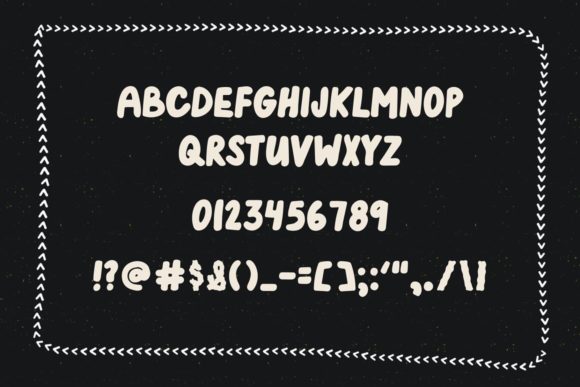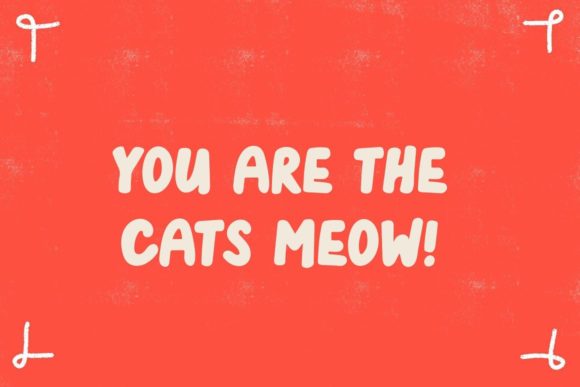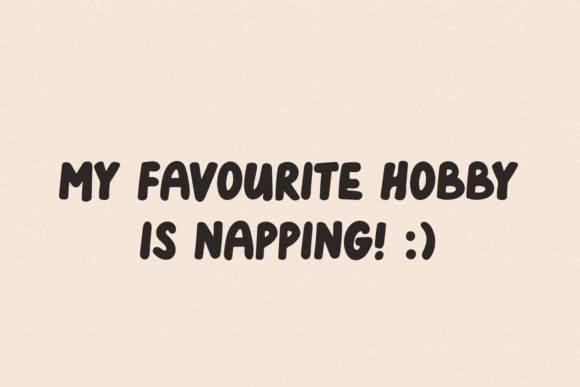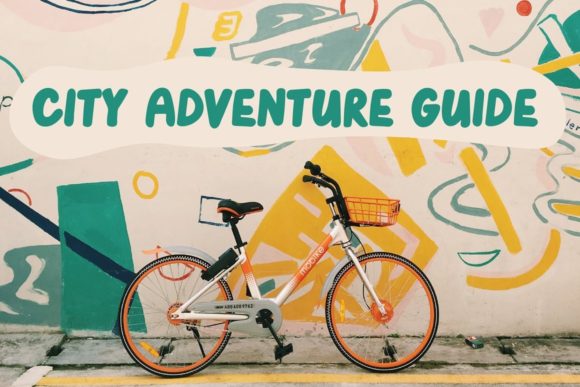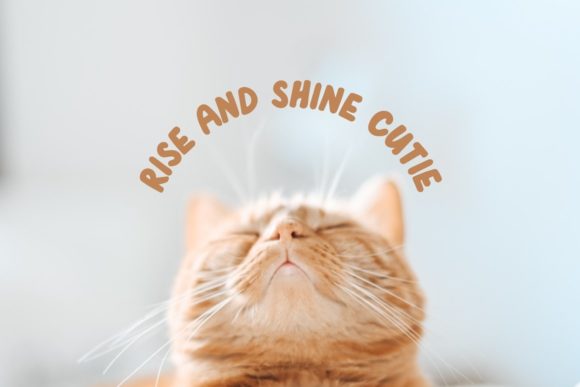
The Purrfect Font: A Deep Dive into Cat Nap Font
Ah, the elusive perfect font. You know, that one font that makes your design project go from meh to mesmerizing. I’ve been there, done that, and got the t-shirt (which, by the way, was probably designed with a font that wasn’t quite perfect 😂). I recall working on a project for a client who wanted a playful, yet bold font to match their brand’s quirky personality. After scouring the internet, I stumbled upon Cat Nap Font, and it was love at first sight! In this article, we’ll explore what makes Cat Nap Font so special, its strengths and limitations, and how to make the most of it in your designs.
First Impressions: What I Love About Cat Nap Font
Cat Nap Font is a playful, round, and bold font that’s perfect for adding a personal touch to your next project. Here are some things that I love about it:
- ✨ Playful and fun: Cat Nap Font has a carefree, handwritten feel that’s perfect for designs that need a bit of whimsy.
- ✅ Bold and eye-catching: This font is not for the faint of heart. It’s loud, proud, and demands attention.
- 👍 Easy to read: Despite its boldness, Cat Nap Font is surprisingly easy to read, even in larger blocks of text.
The Not-So-Perfect: A Few Quirks and Limitations
While Cat Nap Font is an amazing addition to any design project, it’s not without its limitations. Here are a few things to keep in mind:
- ⚠️ Limited punctuation and symbols: The font only comes with a selection of punctuation and symbols, so you might need to get creative if you need something specific.
- 🤔 No lowercase letters: Cat Nap Font is an all-uppercase font, which might be a limitation for some projects.
The Story Behind Cat Nap Font
While I couldn’t find any information on the font’s creator, I like to imagine that Cat Nap Font was designed by a cat lover who wanted to capture the playful spirit of their feline friends. Perhaps they were sipping coffee, surrounded by cat toys and scratching posts, when the idea for Cat Nap Font struck! 🐱
| Is this font suitable for body text? | While Cat Nap Font is easy to read, it’s primarily designed for display purposes. You might find it a bit too bold for longer blocks of text. |